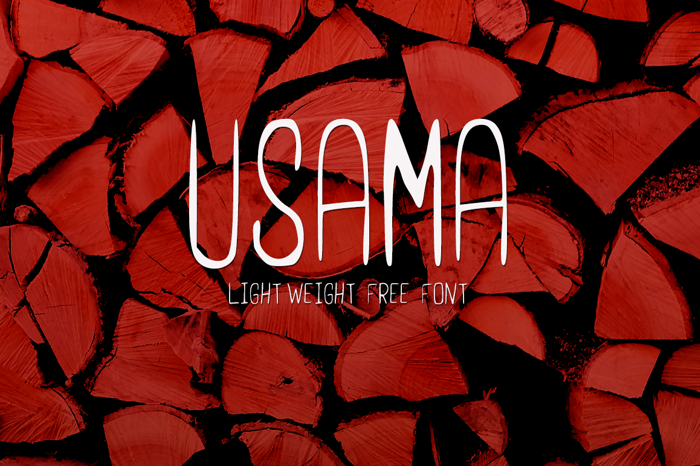
UsamaLight Font
UsamaLight Regular
UsamaLight Regular Font is Hand Lettered font infused with fun and shine. It can be combined in many ways with other script and regular fonts.